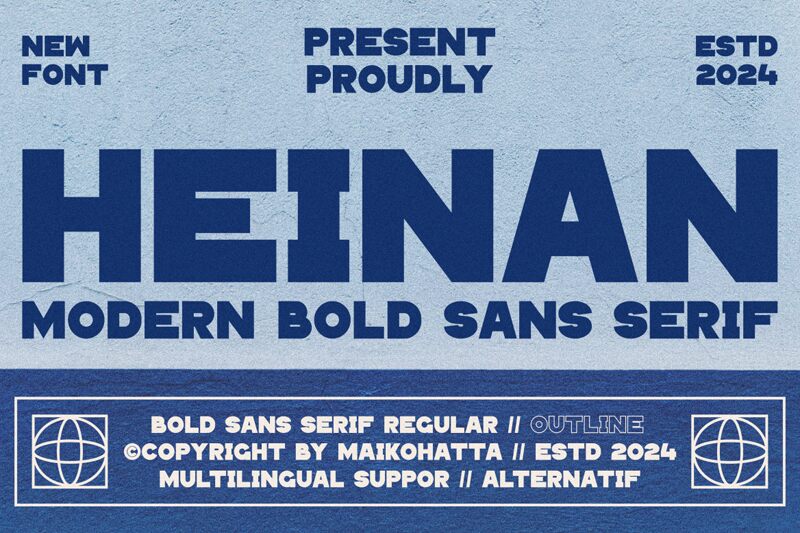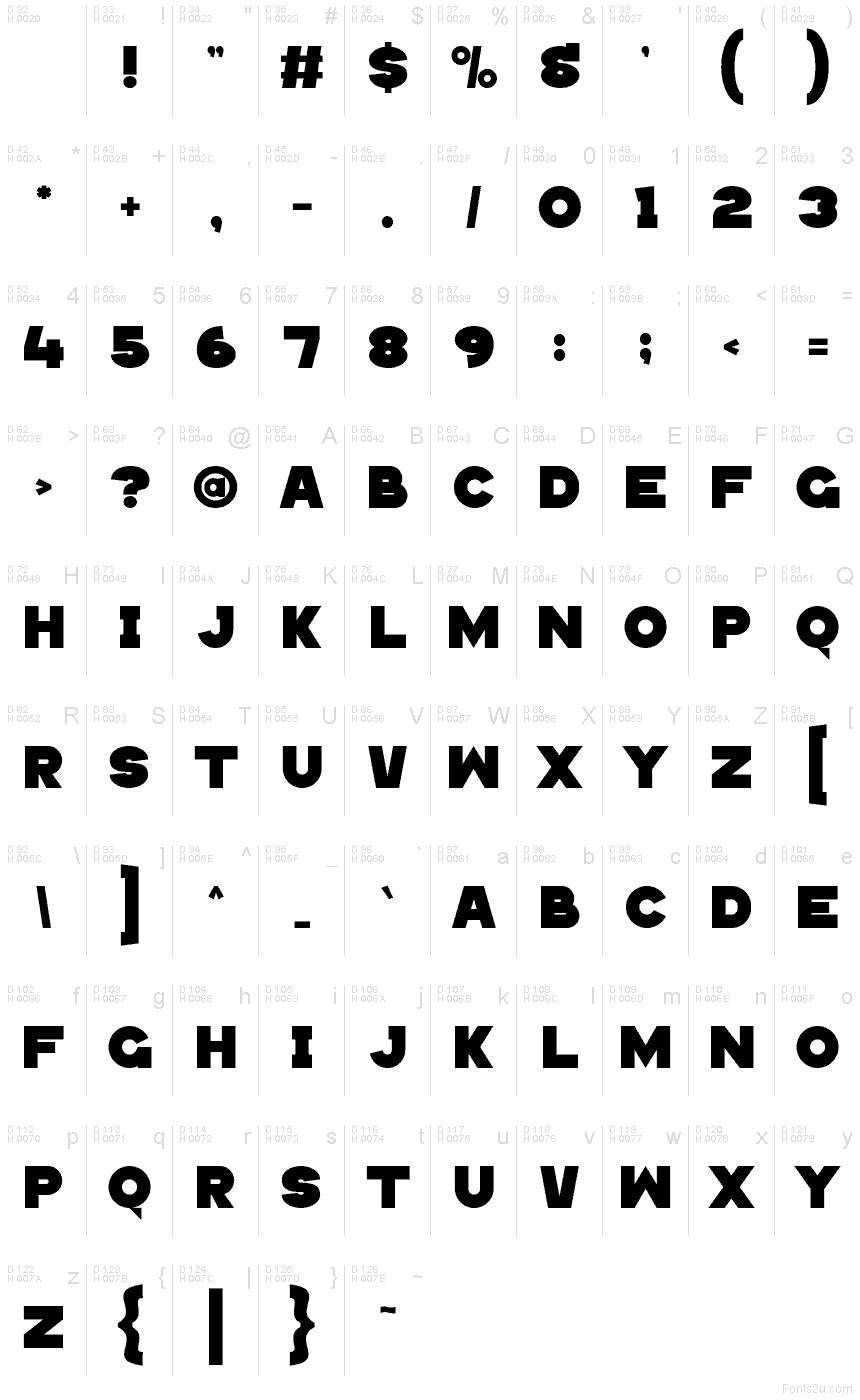
HEINAN
Heinan font by Gilang Ternadho is a free geometric sans display font that hits like a bold poster headline. Its letters are built from thick, upright rectangles with sharp, square corners and almost no curves, giving every word a sturdy, industrial feel. The tight spacing and distinctive cut in the “E” create a strong visual rhythm, so lines of text lock together like metal panels on a warehouse wall.
Using Heinan, you can anchor attention on posters, album covers, esports branding, event flyers, packaging, and bold website hero graphics. This free font thrives at large sizes where its blocky shapes and solid weight can really punch through visual noise. For a simple pairing tip, match Heinan with a clean, light-weight sans for body copy to keep layouts readable while letting the headline stay loud and unapologetic.